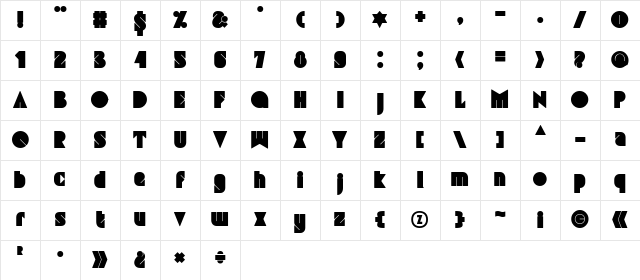
GRAFIKA TYPE.3 Regular
Designer: ZESS TYPE
Design Context for GRAFIKA TYPE.3
GRAFIKA TYPE.3 is a composed and adaptable typeface that performs quietly and consistently across a wide range of design contexts.